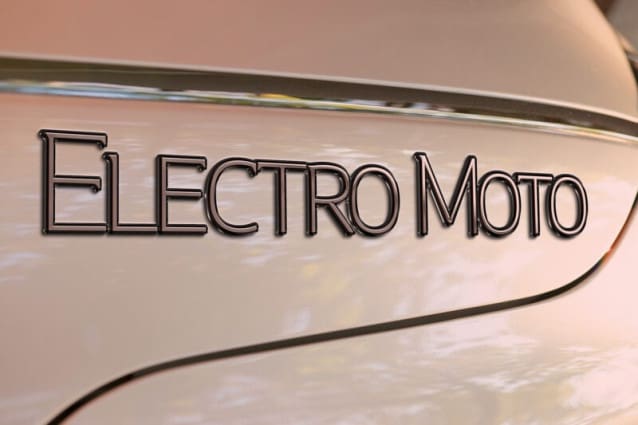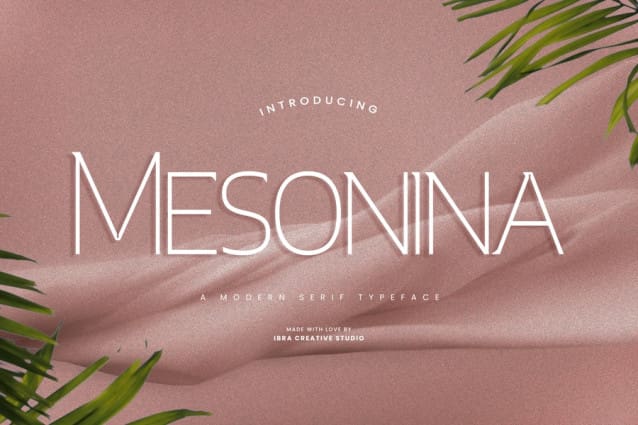
Mesonina Font
Mesonina Font is a contemporary serif font that seamlessly blends tradition with modernity. With its elegant and sophisticated letterforms, Mesonina Font strikes a harmonious balance between classic serifs and a sleek, minimalist design aesthetic. Its crisp, well-defined lines and graceful curves exude a sense of timeless refinement, making it ideal for both print and digital applications where a touch of sophistication and readability are paramount. Mesonina’s versatility and clean, uncluttered design make it a standout choice for branding, editorial layouts, and web design, offering a modern twist on the enduring appeal of serif typography.